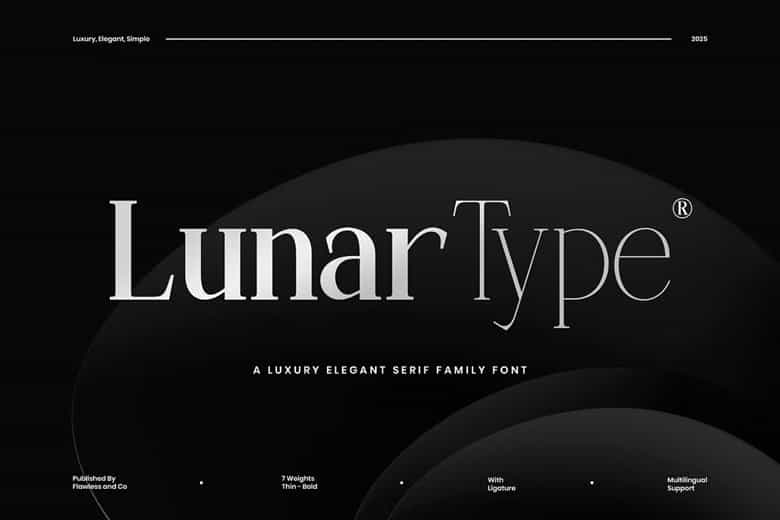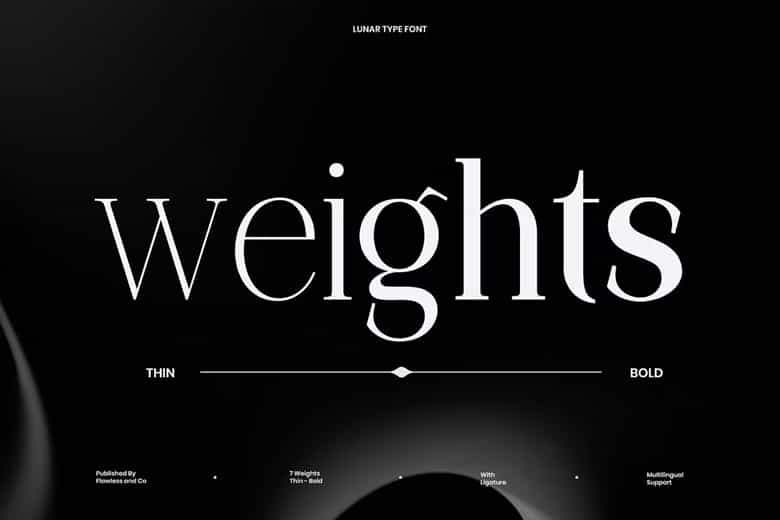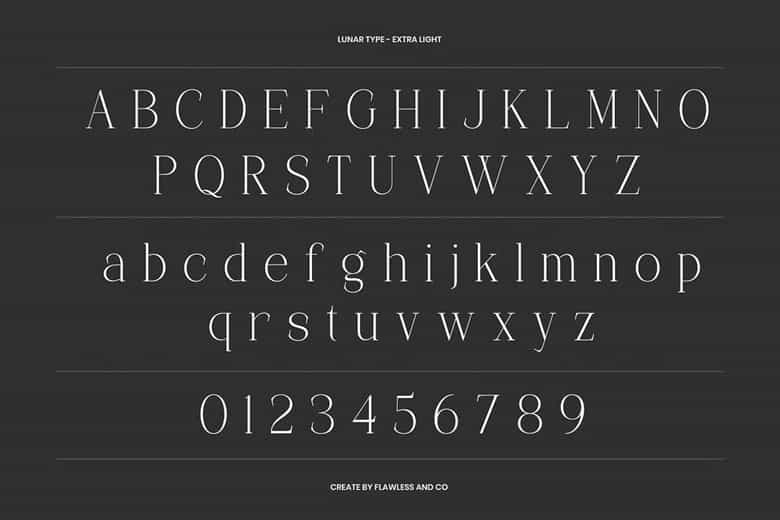
Lunar Type is a classic serif family font that exudes the touch of classiness, minimalism and modernity. Stylish and carefully crafted in its contours, Lunar Type has an immaculate balance between thin and bold styles, which makes it ideal to use with brands, editorials, and premium visual identities. Both letterforms created have the curves and shapes to convey a classic beauty and unobtrusive confidence that will give a pleasant reading and add to your design the understated elegance.